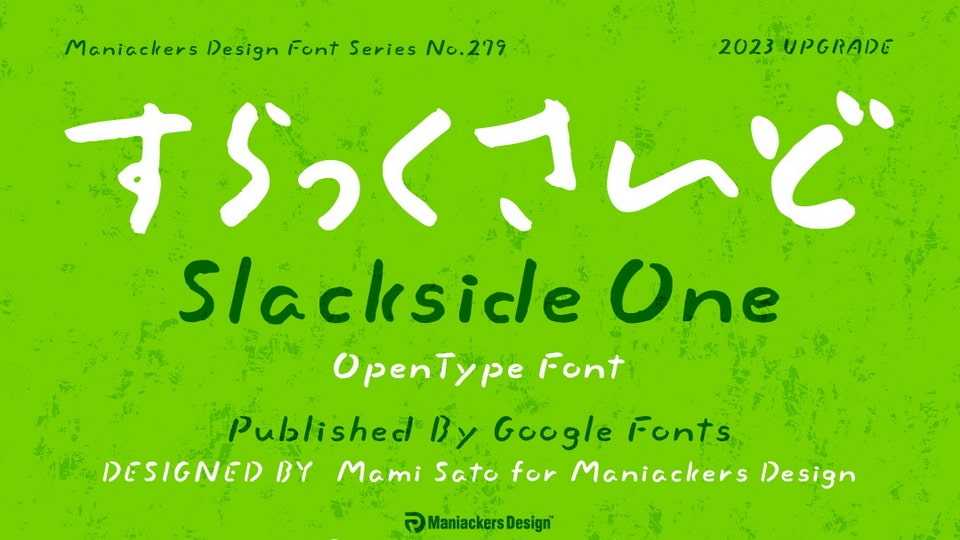
Download Slackside font, a sophisticated handwritten Japanese typeface. Whether you’re designing a comic, writing notes, or crafting an idea, its natural and organic look will add a touch of personality.
Designer: Maniackers Design